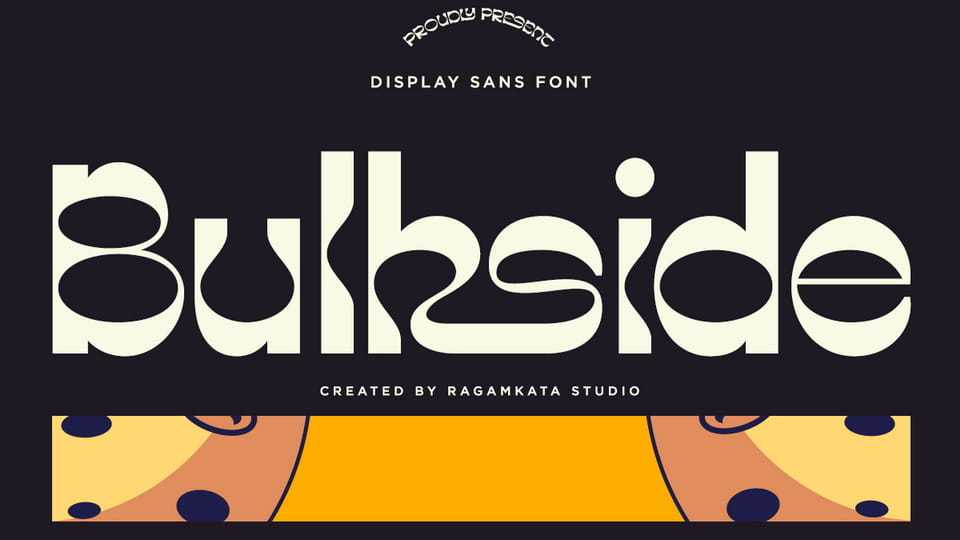
Download Bulkside font, a display sans typeface stands out as a unique option, ideal for both contemporary and retro design styles. This flexible display font integrates effortlessly into any project.